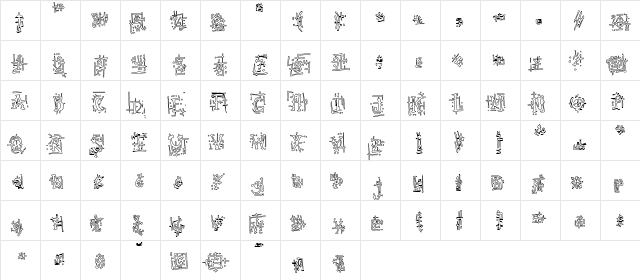
Armaggedon Industrial Hollow Regular
Design Context for Armaggedon Industrial Hollow Typeface
Armaggedon Industrial Hollow is a composed and adaptable typeface that performs quietly and consistently across a wide range of design contexts.